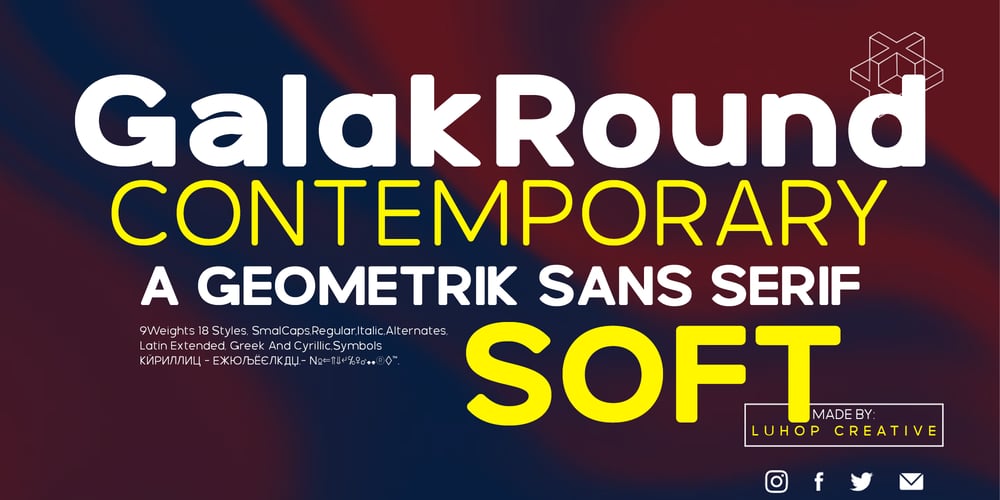
Galak Round Font Family was designed by Arif Fadilah and published by Luhop Creative. Galak Round contains 19 styles and family package options. Galak Pro is a modern geometric sans serif family characterized by its simplicity and extensive functionality.consisting of 9 weights ranging from Hairline to Heavy with matching italics. It supports Extended Latin, Cyrillic and Greek. This blend produce a typeface of modern, clean and contemporary appearance that has implicit on its core a classic vibe, nourishing the text with a timeless elegance.In use, the form and function balance of its design allow it freely travel through a diverse range of fields and possibilities like short text settings, brands, headlines or signage systems with grace and naturality.Galak Pro is available in variable font format and in 18 different individual styles (9 weights), with a set of supports over 200 latin languages and including an extensive repertoire of opentype features like small caps, ligatures, stylistic alternates, proportional and tabular figures,and many other resources to please your typographic urges.